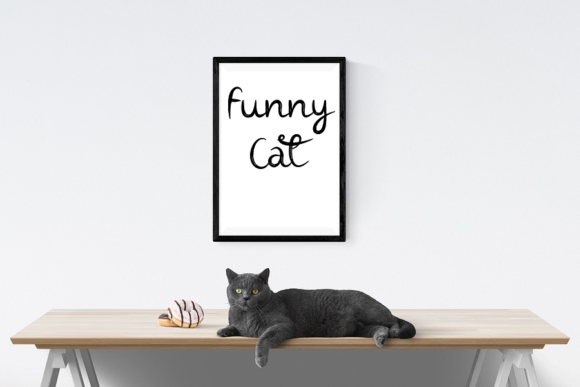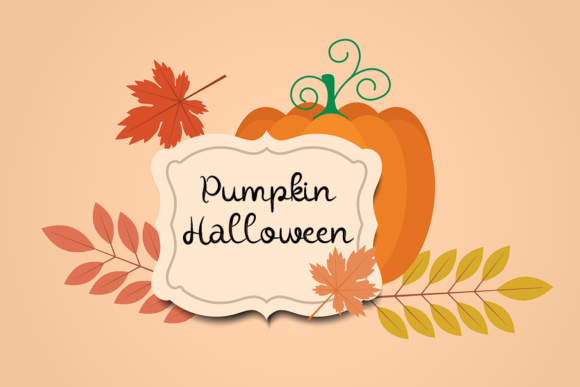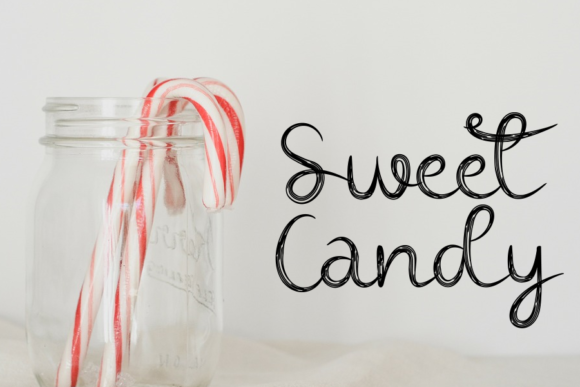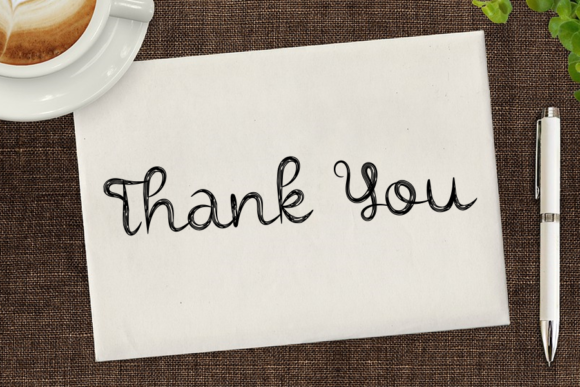
Baby Bee Font
About Baby Bee Font
Baby Bee is a simple and flowing handwritten font. This adaptable font will look great on a variety of design ideas. It will add a fun and friendly touch to each of your projects!